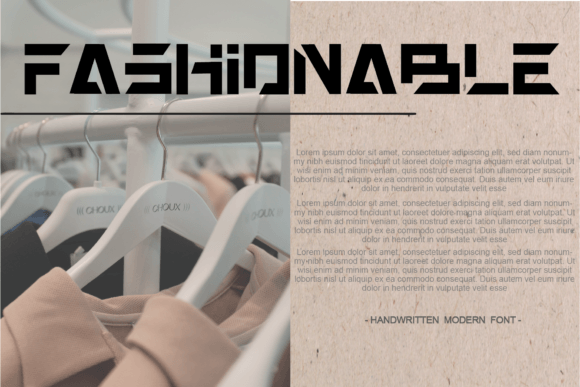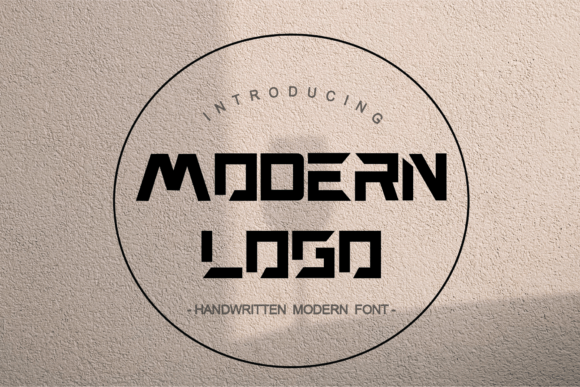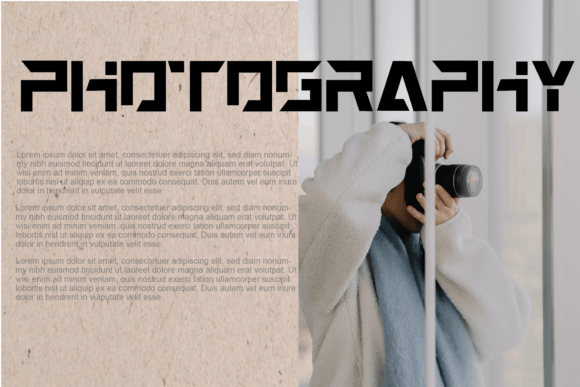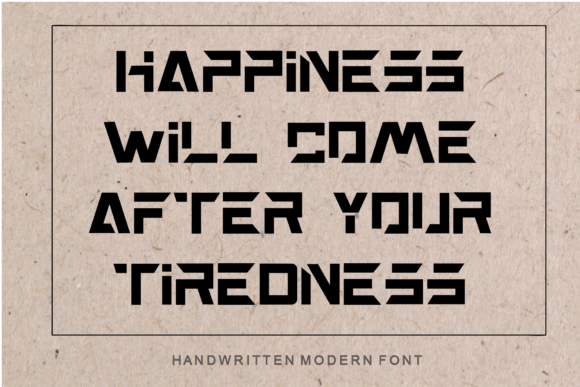
Unleash Your Creativity with the Designer Font
Have you ever been stuck on a design project, staring at a blank canvas, and suddenly, a burst of inspiration strikes? Maybe it was a vibrant color palette, an interesting texture, or a quirky typography that sparked the idea. For designers, moments like these are what make the job so thrilling. And what’s at the heart of many of these eureka moments? A great font, of course!
Introducing the Designer Font, a unique and versatile typeface designed to elevate your creative projects. Whether you’re working on packaging designs, fashion themes, or social media posts, this font is the perfect companion. Its sleek and modern aesthetic makes it a valuable asset for any designer looking to make a lasting impression. With the Designer Font, you can trust that your creations will stand out from the crowd and leave a lasting impact.
Key Features of “Designer Font”
- Unique Characteristics: This font features a unique blend of modern and elegant design elements, including custom ligatures, swashes, and ornaments.
Designer Font Review
Overall, I’d say the “Designer Font” has some great features, but also a few areas where it falls short. Let’s dive into the details.
- Highly customizable: The font offers a wide range of options for adjusting the style, size, and color, making it perfect for creating unique designs.
- Good legibility: The font is easy to read, even at smaller sizes, which is a must for any font intended for digital use.
- Modern aesthetic: The font has a sleek, modern look that’s perfect for contemporary designs.
- Weight limitations: The font is only available in a limited range of weights, which can make it difficult to achieve a consistent look across different elements of a design.
- Language support: The font only supports a limited number of languages, which can be a problem for designs intended for international audiences.
- Lack of italics: The font does not offer an italic version, which can make it difficult to create emphasis or add visual interest to a design.
In conclusion, while the “Designer Font” has some great features, its limitations hold it back from being a top choice for designers. With some additional development, I think it has the potential to be a truly great font.
Designer Font: A Practical Application Guide
When using Designer Font, keep the following tips in mind: Use it sparingly to create a bold statement, pair it with other fonts to create contrast, and adjust the font size and color to suit your design needs. Experiment with different styles and combinations to find the perfect look for your project.
Designer Font is ideal for use in branding materials, such as logos, business cards, and letterheads. It can also be used in marketing materials, such as brochures, flyers, and social media graphics. Additionally, it can be used in digital products, such as websites, apps, and e-books.